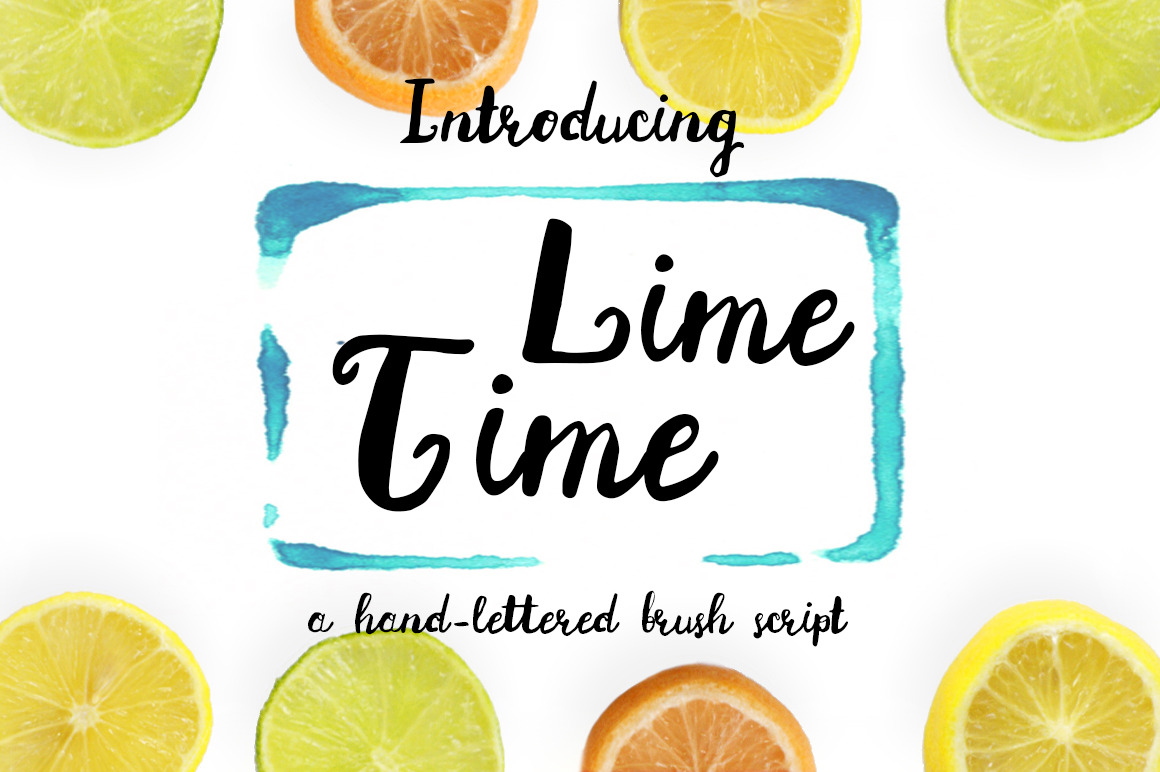
Lime Time Handwritten Font
Introducing Lime Time hand-lettered brush script! 100% Handwritten font with lots of personality
Lime Time font perfect for greeting cards, branding, social media, packaging, prints and more.